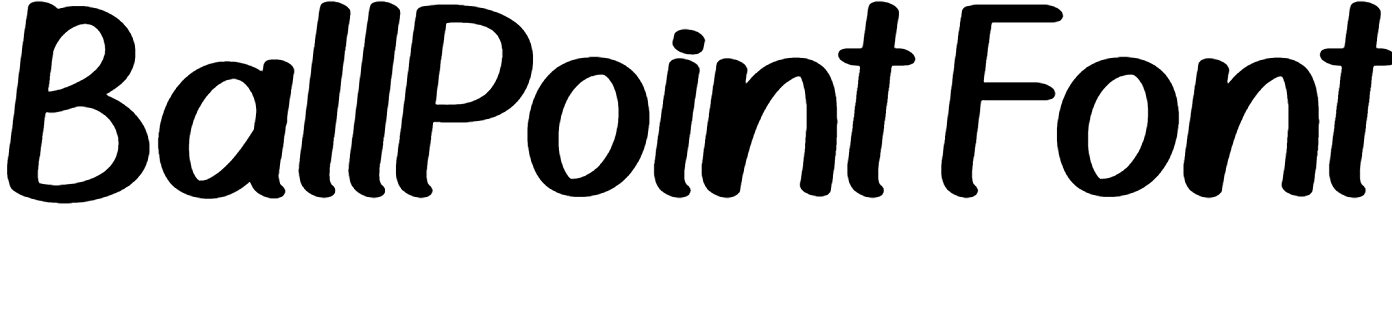
BallPoint
BallPoint is a fancy font. It's a decorative display font with plenty of personality, made to grab attention. It's a free download, and you can try it with your own text in the preview above first.
What You Can Type With BallPoint
BallPoint covers the full alphabet in upper and lowercase, plus all ten numbers, so you can set names, dates and prices without switching fonts. Everyday marks like &, !, ? and @ are there too. Thanks to its accented letters, it also works for Spanish, French, Portuguese and Italian, not just English.
Where BallPoint Works Best
Think of BallPoint for posters, logos and eye-catching headlines. Use it for one standout word or headline and let simpler fonts handle the rest.
Does BallPoint support accented letters?
Yes. BallPoint includes the accented letters needed for Spanish, French, Portuguese and Italian, so it works for more than just English.